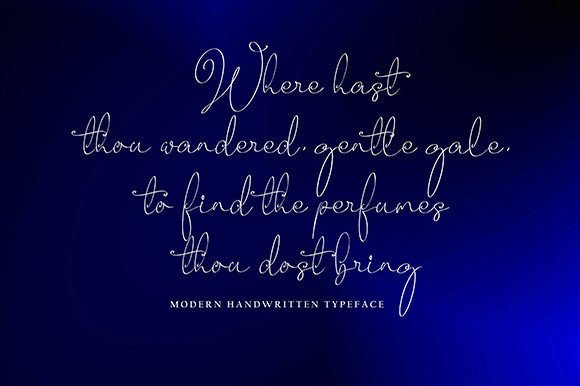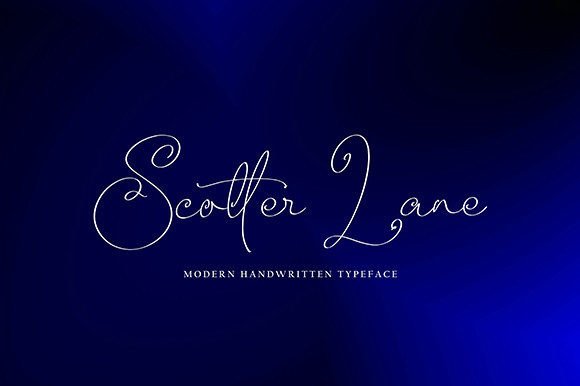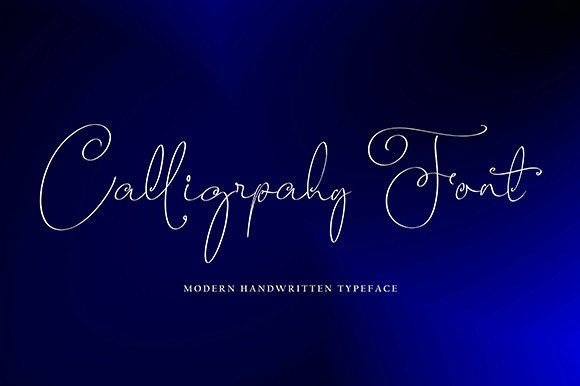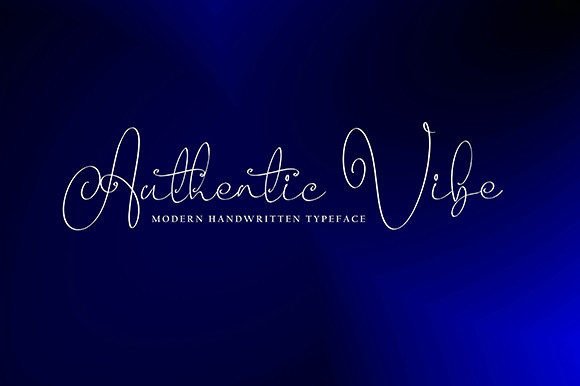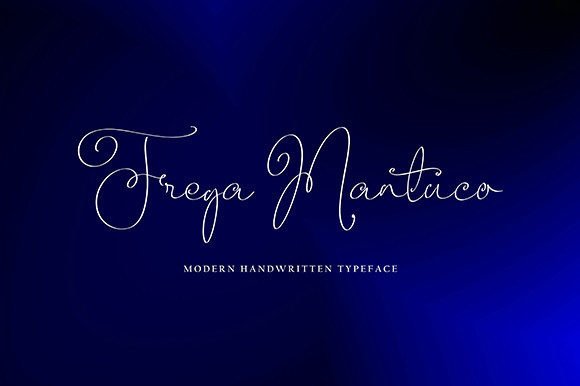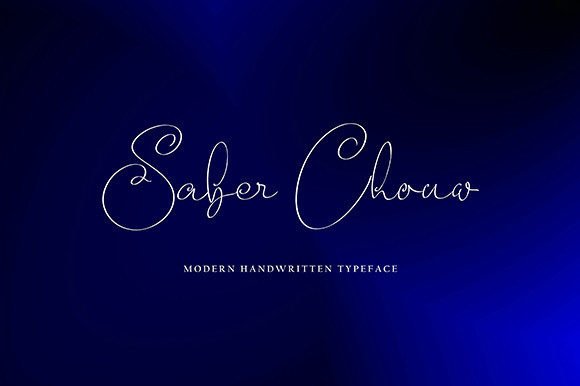
Introducing Bugetta Hanttera: The Epitome of Luxurious Handwritten Fonts
In the realm of typography, few fonts manage to strike a balance between contemporary style and classic elegance. Bugetta Hanttera Font is one such gem that seamlessly blends modern simplicity with timeless charm, making it an ideal choice for designers and crafters seeking to elevate their projects. This luxurious handwritten font is poised to become the go-to selection for upscale branding, high-end packaging, and chic stationery designs that exude both sophistication and personality.
Aesthetic Appeal: Clean, Sophisticated Lines and Effortless Elegance
Bugetta Hanttera’s aesthetic appeal lies in its clean, sophisticated lines that dance across the page with an air of effortless elegance. Each letterform is meticulously crafted to convey a sense of refinement and luxury, making it perfect for projects that demand a high-end feel. Whether you’re designing a brand identity, packaging, or stationery, this font’s classic yet modern aesthetic ensures that your work stands out with a touch of sophistication.
Contemporary Style Meets Timeless Charm
What sets Bugetta Hanttera apart is its unique blend of contemporary style and timeless charm. In an era where modern simplicity is often favored, this font proves that elegance and sophistication can still be achieved without sacrificing a modern edge. Its versatility allows it to be used across various design applications, from digital platforms to print materials, ensuring consistency and high-quality visuals.
Bugetta Hanttera Font comes with the added convenience of PUA (Private Use Area) encoding. This feature means that accessing the font’s delightful glyphs and swashes is incredibly straightforward. Designers can effortlessly incorporate these decorative elements into their work, adding an extra layer of personality and flair to their designs. Whether you’re looking to add a touch of whimsy or maintain a level of sophistication, PUA encoding ensures that you have the flexibility to experiment with various design elements.
Ideal for Upscale Branding, Packaging, and Stationery
Given its luxurious feel and versatile nature, Bugetta Hanttera Font is particularly well-suited for:
- Upscale Branding: Create a lasting impression with a font that exudes luxury and sophistication. Perfect for high-end brands looking to establish a refined and elegant identity.
- High-End Packaging: Elevate your product packaging with a font that communicates premium quality and attention to detail.
- Chic Stationery Designs: Add a touch of elegance to your stationery, making it perfect for personal use or as a distinctive element in your brand’s marketing materials.
Why Choose Bugetta Hanttera?
Choosing Bugetta Hanttera Font for your design projects offers several advantages:
- Unique Aesthetic: Stand out with a font that combines modern simplicity with classic elegance.
- Versatility: Suitable for a wide range of design applications, from digital to print.
- Easy to Use: PUA encoding allows for effortless access to glyphs and swashes.
- High-Quality Design: Professionally crafted to ensure clarity and legibility across various sizes and applications.
Bugetta Hanttera Font represents a pinnacle of typographic excellence, offering designers and crafters a tool that combines the best of both worlds: modern style and classic charm. Its luxurious feel, versatility, and ease of use make it an indispensable asset for anyone looking to create high-end designs. Whether you’re working on upscale branding, high-end packaging, or chic stationery, Bugetta Hanttera is poised to elevate your projects to new heights of sophistication and elegance.
Embrace the beauty and versatility of Bugetta Hanttera Font in your next design venture. Experience firsthand how this exquisite handwritten font can transform your work, adding a touch of luxury and personality that sets it apart.